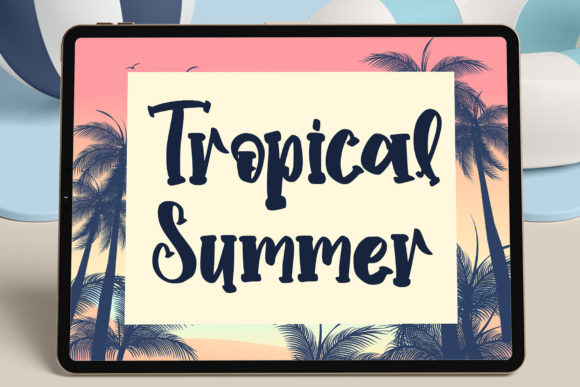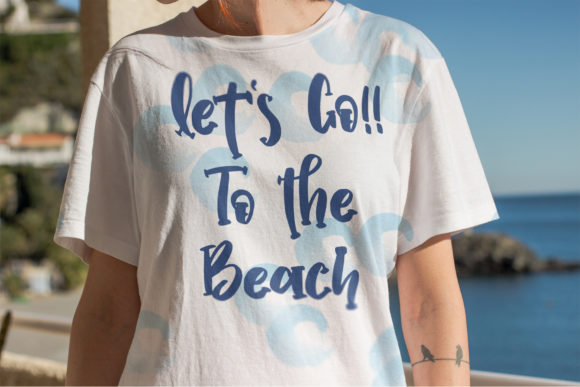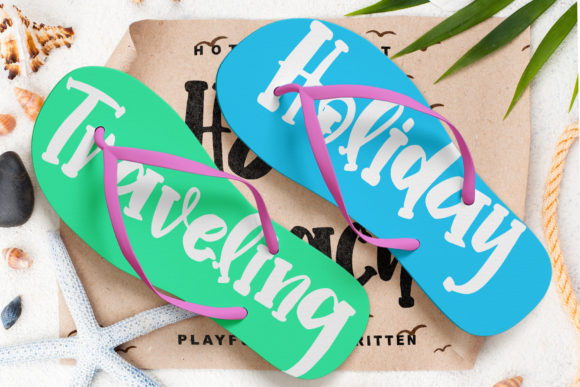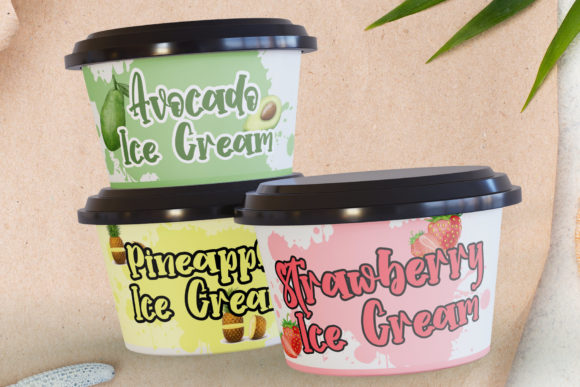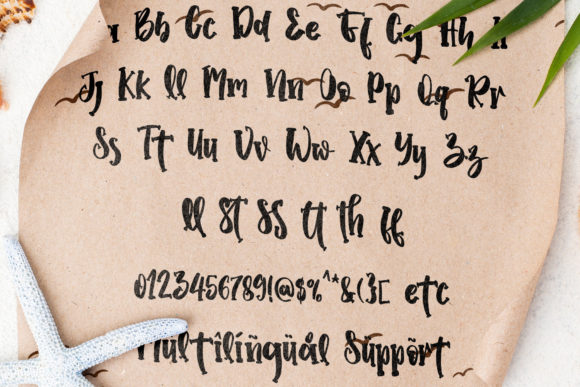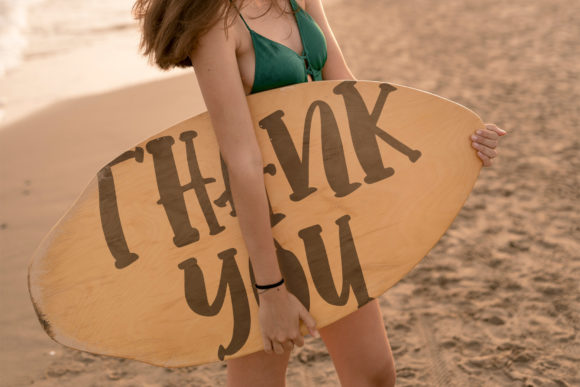
Welcome to the World of Whimsy: Introducing Hello Beach Font
Have you ever found yourself lost in a sea of creativity, surrounded by scribbled notes and abandoned design concepts? That’s where the magic happens. The spark of inspiration that sets your project ablaze, the ‘aha’ moment that makes it all worth it – it’s a feeling like no other.
For those who crave a dash of whimsy in their designs, we’ve got just the thing: Hello Beach Font. This charming, handwritten font is the perfect addition to your fashion branding or editorial projects. Its smooth curves and playful charm will transport your audience to a world of sun-kissed beaches and carefree days. By incorporating Hello Beach Font into your designs, you’ll add a touch of personality and warmth that’s sure to leave a lasting impression.
Hello Beach Font Key Features
- Font Size: The font size is scalable, allowing for flexibility in various design applications.
- Resolution: The font is designed for high-resolution displays, ensuring crisp and clear typography at resolutions up to 300 DPI.
- Unique Characteristics: The Hello Beach Font features a distressed, hand-painted aesthetic with a beachy, laid-back vibe, making it perfect for summer-themed designs and projects.
- Font Styles: The font includes multiple font styles, including Regular, Italic, Bold, and Bold Italic, offering users a range of options for creating visually appealing designs.
- Language Support: The font supports a wide range of languages, including Latin, Greek, and Cyrillic scripts, making it suitable for international design projects.
Hello Beach Font Review
First off, I have to say that I love the vibe of the Hello Beach Font. ✨ It’s perfect for any project that needs a fun, carefree feel. The font is a great choice for branding, advertisements, or even digital products that want to evoke a sense of summer fun. The characters are well-designed, and the kerning is spot on, making it a pleasure to read.
Another great thing about Hello Beach Font is its versatility. ✨ It comes in various weights and styles, so you can easily mix and match to create a unique look that suits your project. Plus, the font is highly customizable, allowing you to adjust the size, color, and spacing to your heart’s content.
One thing to keep in mind is that Hello Beach Font may not be the best choice for complex texts. ⚠️ The font is designed to be playful and attention-grabbing, but it may not be the most readable for long blocks of text. Additionally, the font may not be suitable for projects that require a more formal or professional tone.
Overall, I think Hello Beach Font is a great choice for any project that needs a fun, carefree feel. While it may have some limitations, the font’s versatility and customizability make it a great option for designers who want to add a touch of whimsy to their work.
- Perfect for branding, advertisements, and digital products
- Well-designed characters and good kerning
- Versatile and highly customizable
- May not be the best choice for complex texts
- May not be suitable for formal or professional projects
Practical Application Guide for “Hello Beach Font”
Use “Hello Beach Font” for beach-themed designs, summer events, or tropical-inspired projects.
Combine “Hello Beach Font” with other beach-themed graphics and elements for a cohesive look.
Alternatives to Hello Beach Font
Pacifico is a beautiful, modern script font that is perfect for creating a relaxed and casual atmosphere. It is ideal for use in beach-themed designs, wedding invitations, and other creative projects. Pacifico is more elegant and refined compared to Hello Beach Font, which is more playful and whimsical.
Great Vibes is a fun and lively font that is great for creating a beachy vibe. It is perfect for use in travel brochures, advertisements, and other promotional materials. Great Vibes is more energetic and playful compared to Hello Beach Font, which is more laid-back and casual.